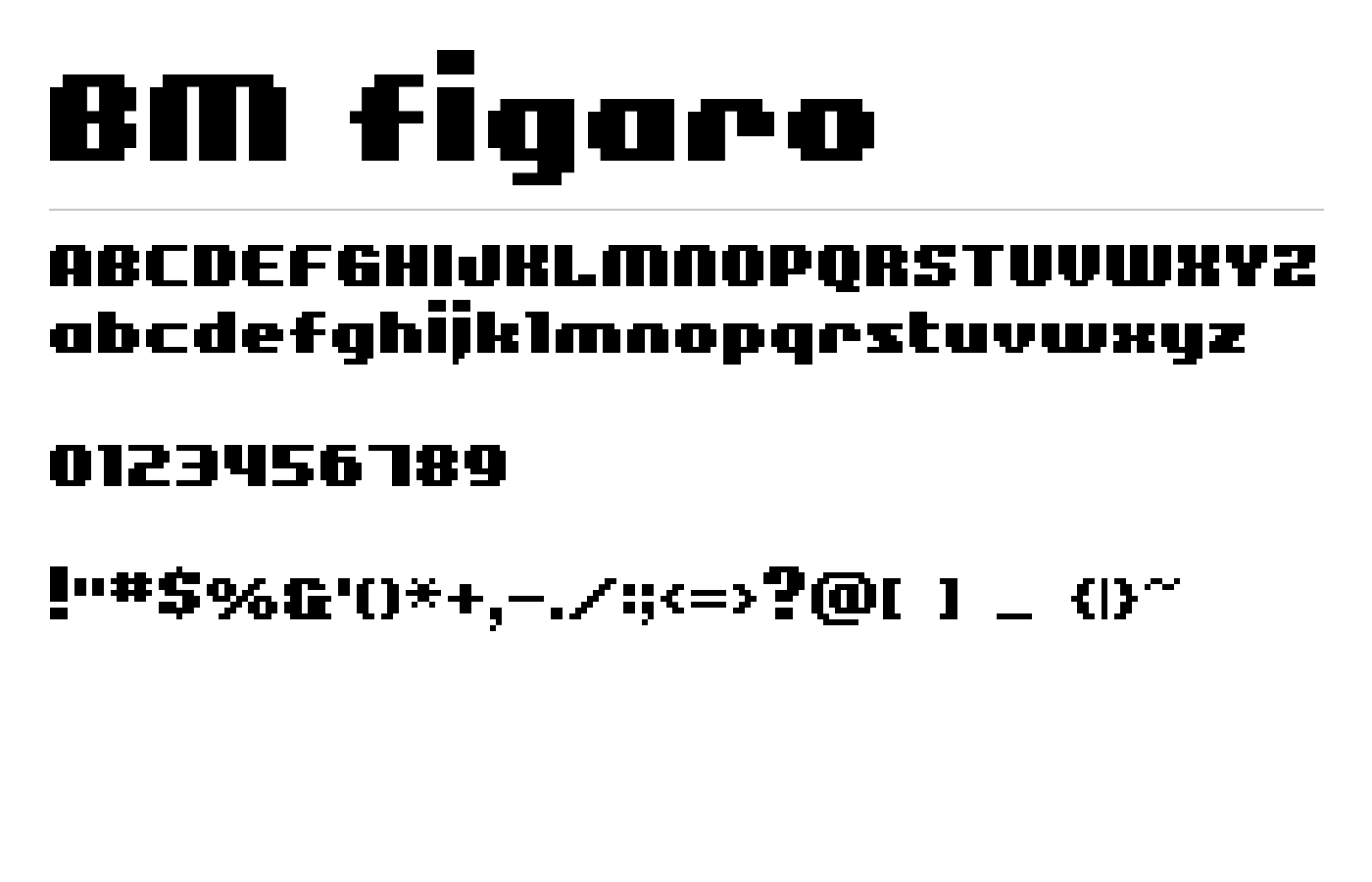
BM Figaro is a bold, blocky sans serif font with a pixelated, retro digital style. Its heavy weight and square, geometric forms give it a strong, tech-inspired look, making it ideal for designs that need a sturdy, nostalgic, or video game vibe. This font works well for headlines, logos, and creative projects that want to evoke an old-school digital or arcade aesthetic.
BM figaro Font
About BM figaro Font